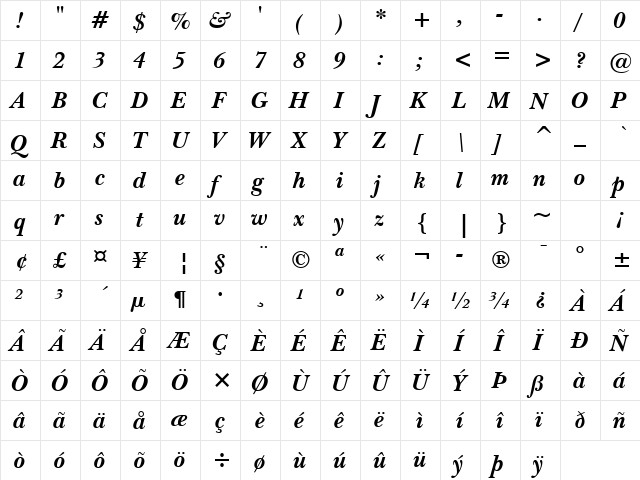
NewBskvll BT Bold Italic
Design Context for NewBskvll BT Typeface
NewBskvll BT is a composed and adaptable typeface that performs quietly and consistently across a wide range of design contexts. Its italic angle brings a sense of urgency and motion to the letterforms. The heavy weight commands attention and anchors typographic hierarchies.
Pro Tip: Use NewBskvll BT for emphasis, pull quotes, and subheadings where its slanted energy can add rhythm to the layout.